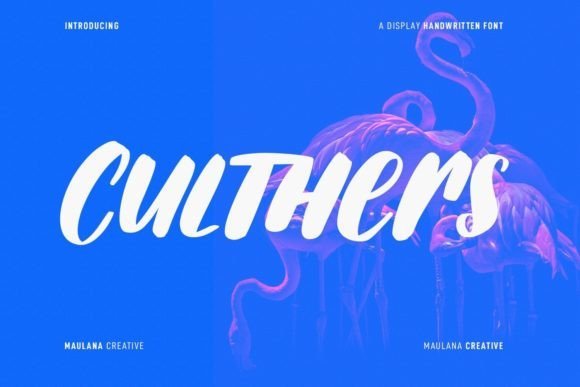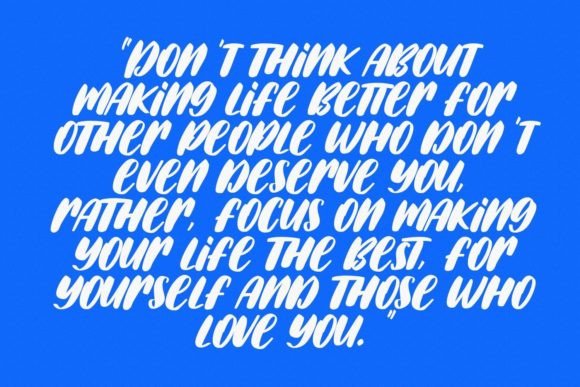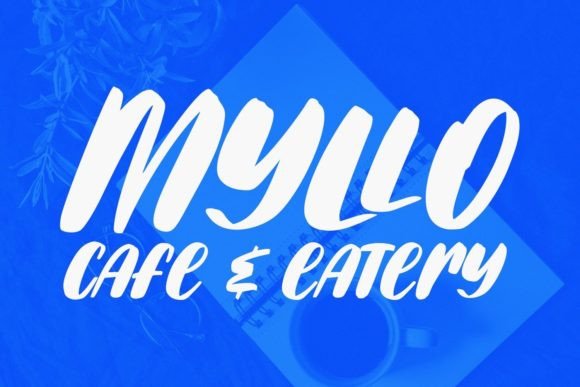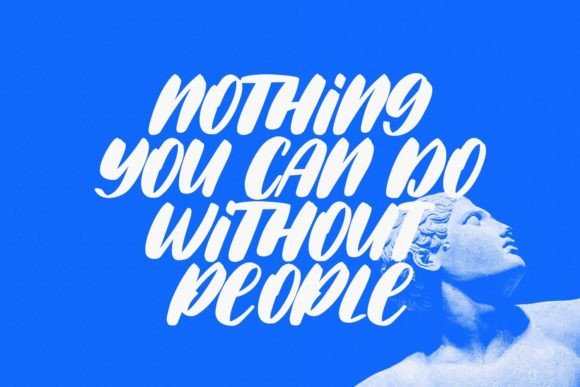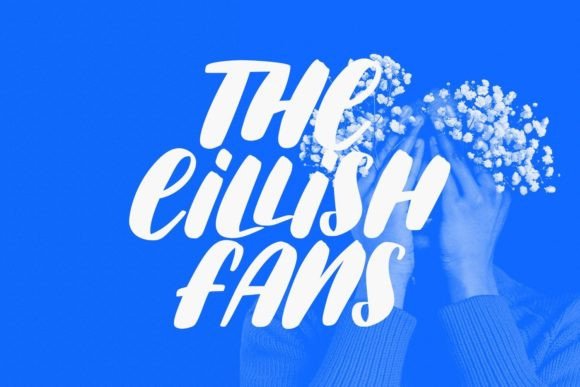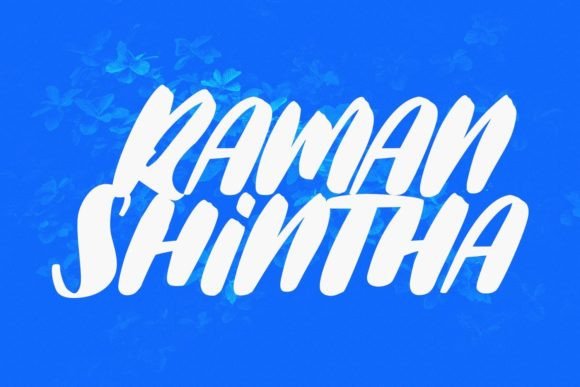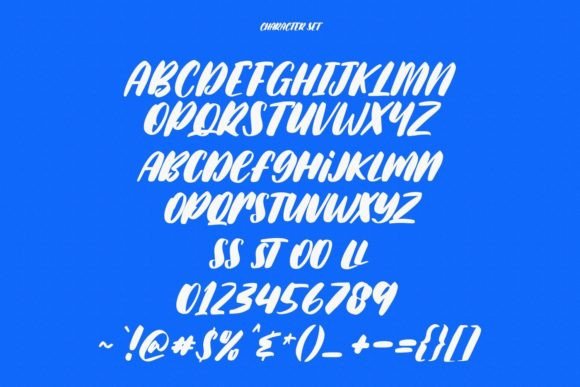
The Power of Handwritten Charm: Introducing Culthers Font
Have you ever stared at a blank page, trying to come up with the perfect design concept, only to find inspiration in the most unexpected place – like a handwritten note from a friend? That’s exactly what happened to us when we discovered Culthers Font, a fun and casual handwritten display font that brings a touch of personality to any design.
Culthers Font is designed to add a playful twist to your projects, making them feel more approachable and engaging. With its chunky lettering and carefree spirit, it’s the perfect addition to any designer’s toolkit. Whether you’re creating a social media campaign, a logo, or a wedding invitation, Culthers Font is sure to bring a smile to your audience’s faces.
Culthers Font Review
I recently had the chance to work with Culthers Font, and I must say it’s been an interesting experience. Here’s my honest take on this font.
- Unique aesthetic: Culthers Font has a distinctive look that can add a touch of elegance to your design.
- Good for display use: It’s perfect for titles, headings, and other display text where you want to make a statement.
- Legible: Despite its ornate nature, Culthers Font is still easy to read, making it a great choice for body text.
- Limited language support: Culthers Font may not support all languages, which can be a concern for multilingual projects.
- Not ideal for body text: While it’s legible, Culthers Font can be a bit too ornate for extended body text, making it difficult to read.
- May not be suitable for small text sizes: The intricate details of Culthers Font can make it difficult to read at small text sizes.
Overall, I think Culthers Font is a great addition to any designer’s toolkit, but it’s essential to use it judiciously. It’s perfect for making a statement, but may not be the best choice for everyday body text.
Culthers Font: A Practical Application Guide
Culthers Font is a versatile and elegant font that can be used in various design applications. To get started, ensure you have the font installed on your device or have access to it through a font library or subscription service.
Tips for Getting the Most Out of Culthers Font
Use Culthers Font in combination with other elegant fonts to create a sophisticated look. Experiment with different font sizes and styles to add visual interest to your designs. Consider pairing Culthers Font with a bold or sans-serif font to create contrast and balance.
Culthers Font is ideal for use in formal invitations, business cards, and brochures. It’s also suitable for use in digital designs, such as social media graphics and presentations.